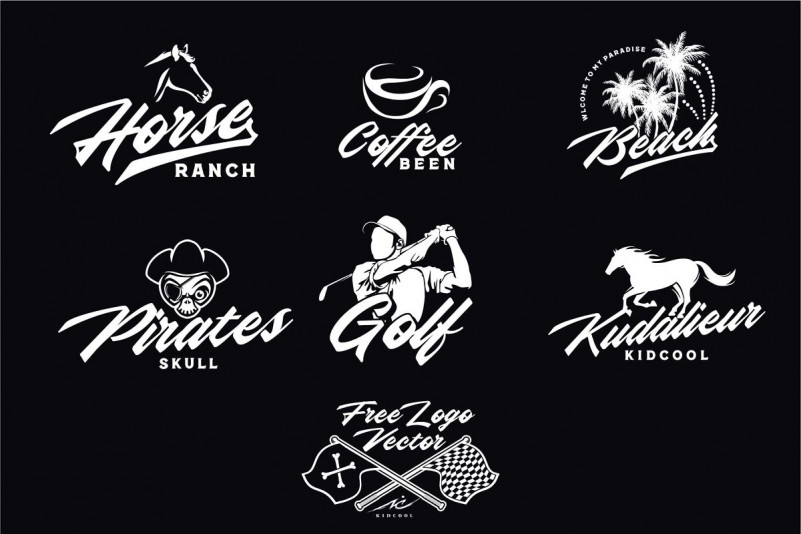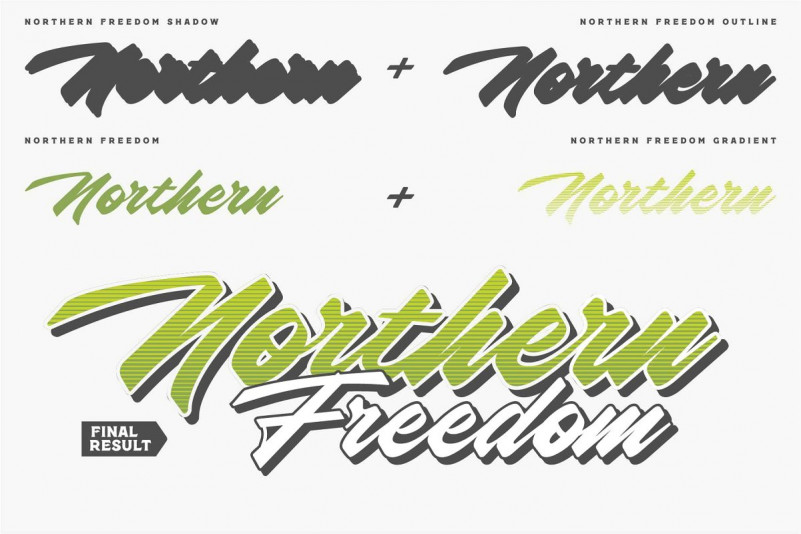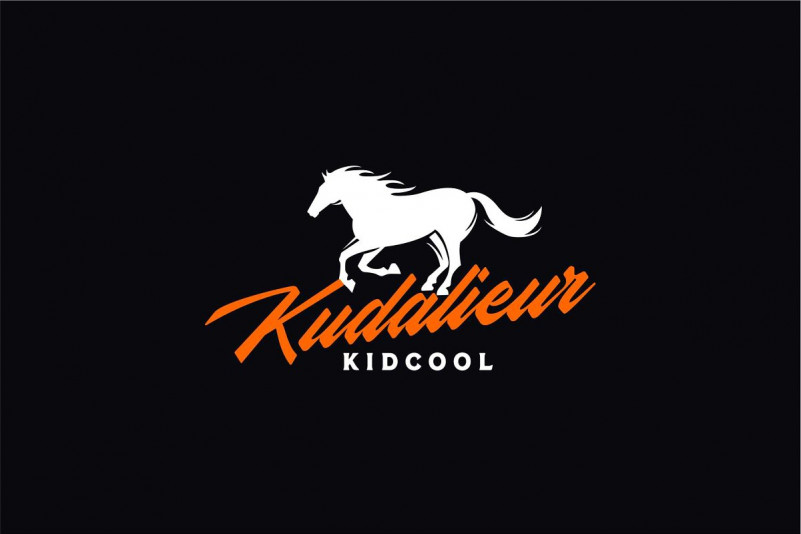
Northern Freedom Script Font
Introducing Northern Font – an modern calligraphy script font. I hope you will find this font and these add-ons a fun addition to your font collection! It is designed and shared by KIDCOOL. Northern Freedom is a modern script font. Northern Freedom has three supporting fonts, including shadow, gradient and outline. It will be enlighten your creative work. So many combination you can achieve with Northern Freedom.